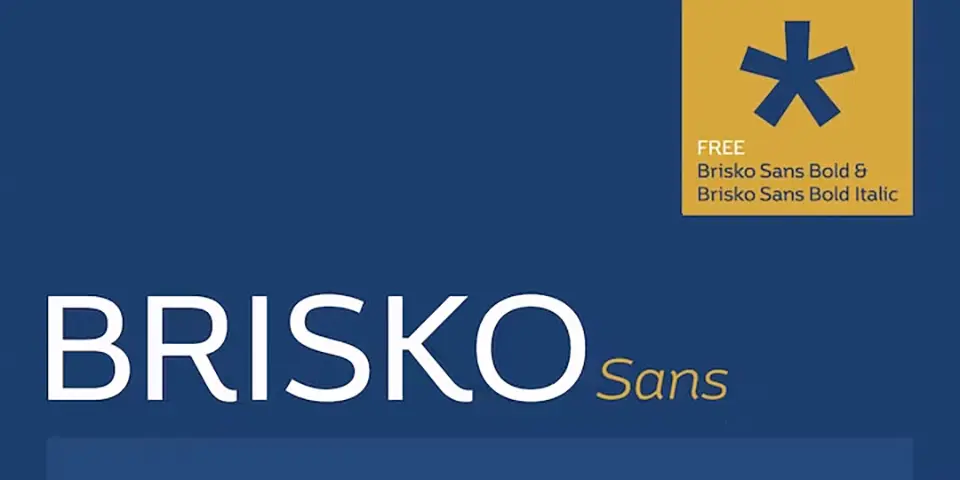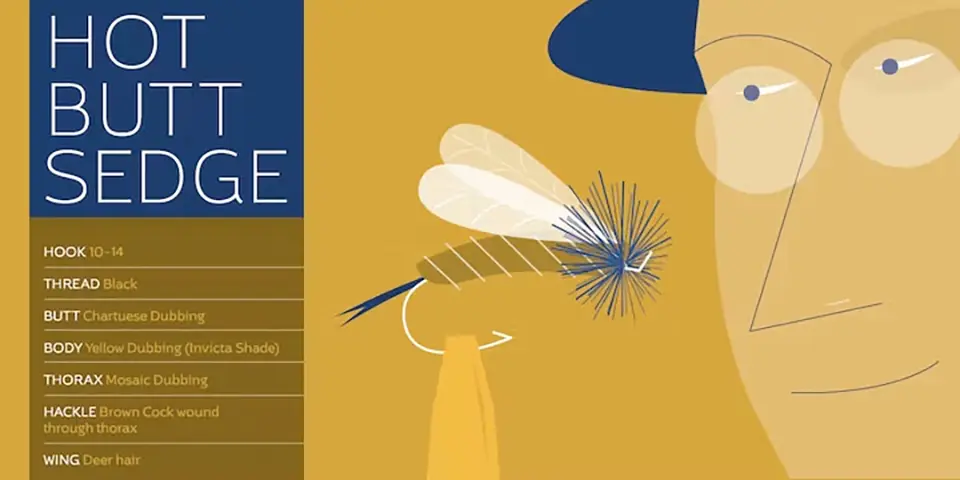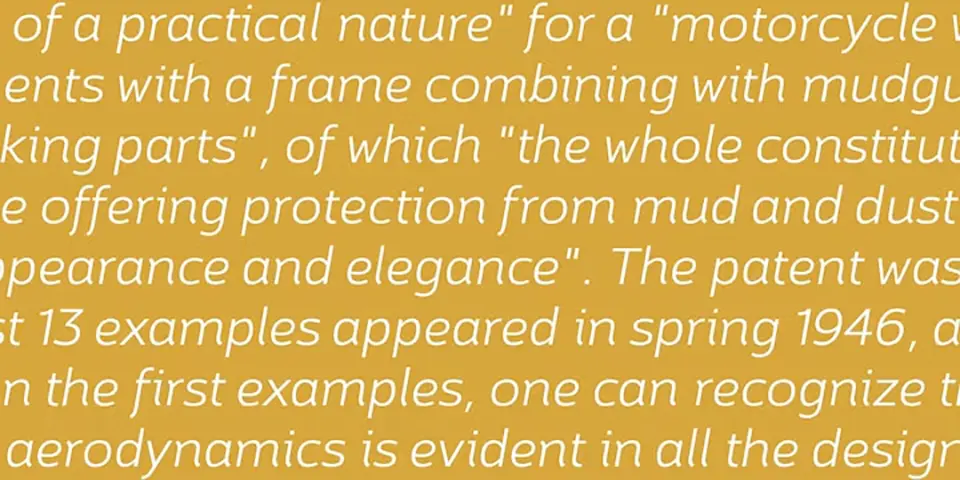
Brisko Sans Font
Brisko Sans Font is a clean and versatile sans-serif typeface designed for modern and professional use. With its sleek lines and balanced proportions, it offers excellent readability, making it suitable for both digital and print applications. Brisko Sans features a range of weights, including bold and italic styles, providing flexibility for various design needs such as branding, headlines, body text, and user interfaces. Its contemporary aesthetic is complemented by subtle geometric influences, giving it a timeless yet approachable feel. Ideal for designers seeking clarity and sophistication, Brisko Sans is a reliable choice for creating impactful and polished designs.